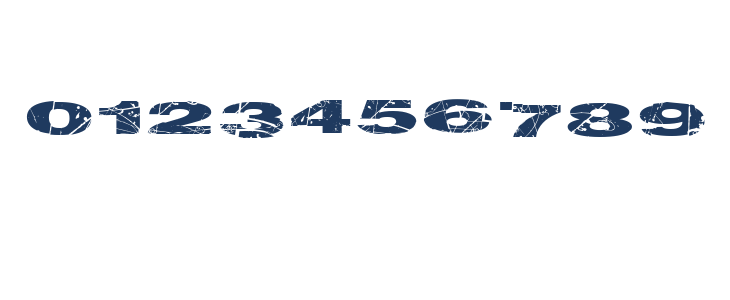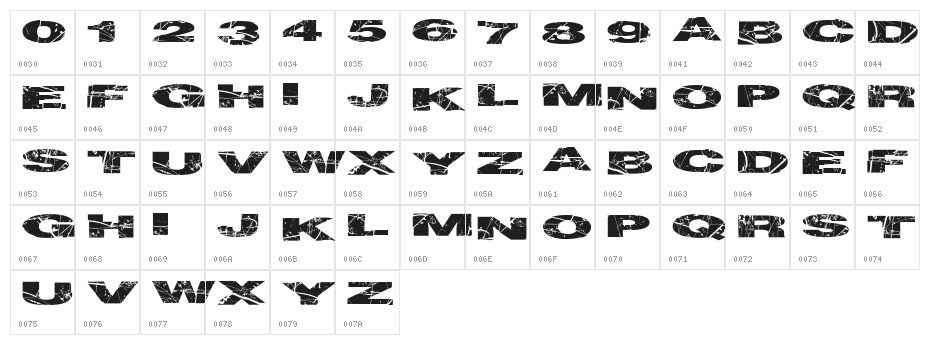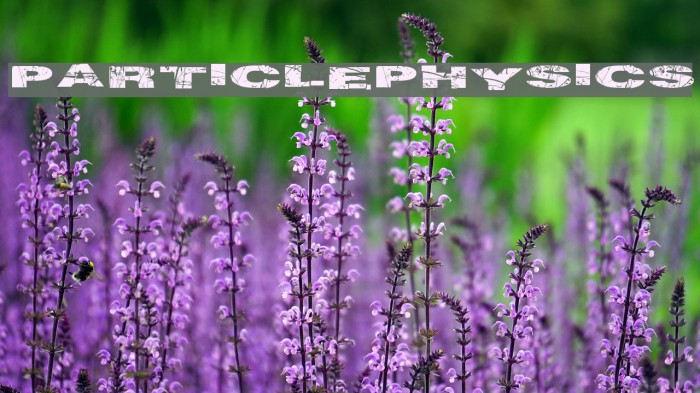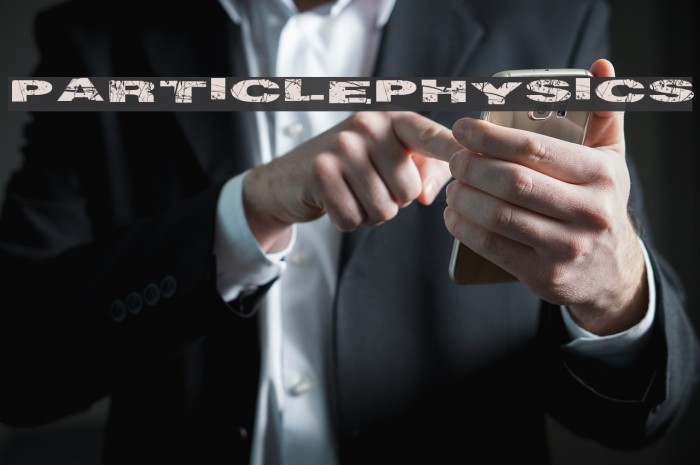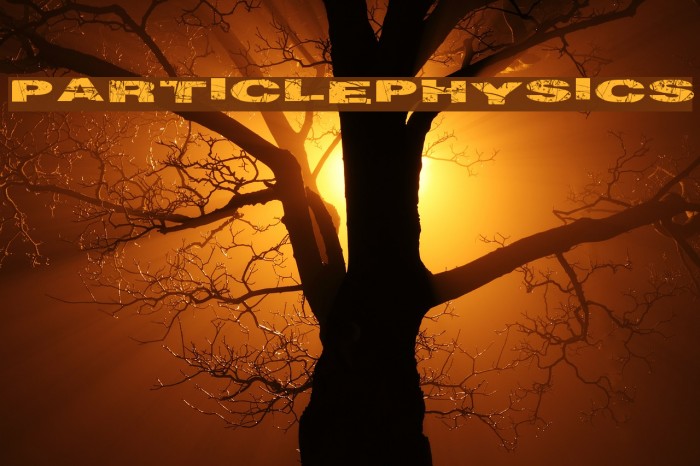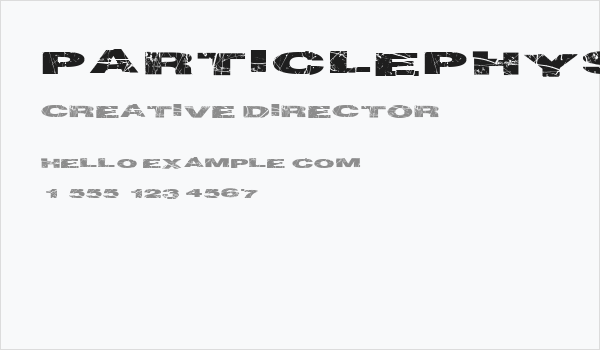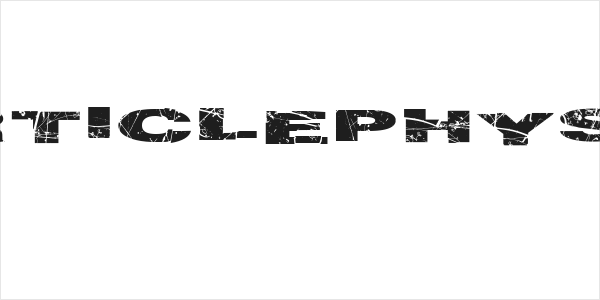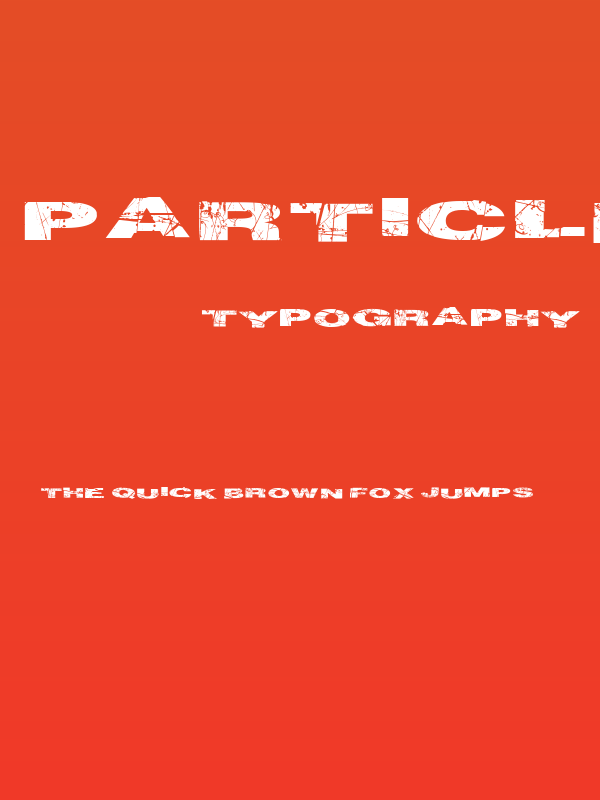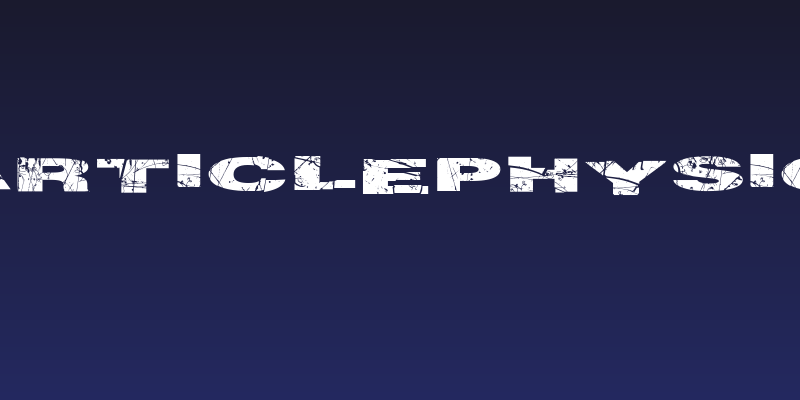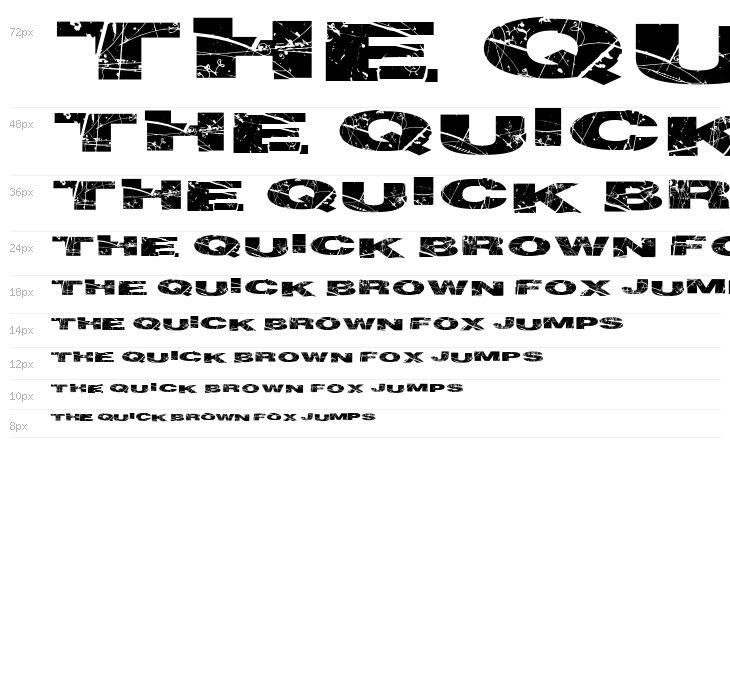
ParticlePhysics Font
ParticlePhysics Description
This font features a bold, distressed style with a fragmented appearance, giving it a rugged and edgy look. The uppercase letters are prominent and impactful, with a unique texture that suggests wear and tear, making it ideal for projects that require a gritty or industrial aesthetic. The numbers and special characters maintain the same distressed pattern, ensuring consistency across all glyphs. This font's design is particularly suited for creative projects that aim to capture attention and convey a sense of raw energy.
| Proposed Projects | Ideal for posters, album covers, urban-themed designs, and branding that requires a gritty, industrial feel. |